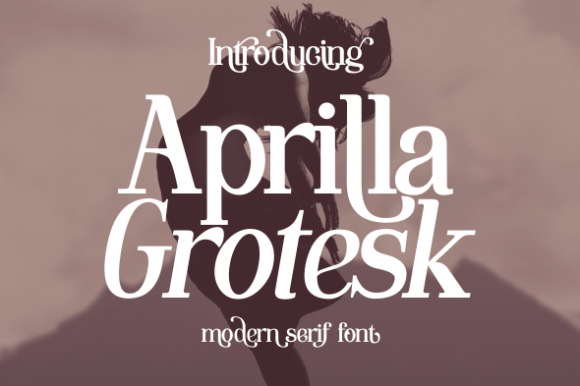
Introducing Aprilla Grotesk Font, a Striking Serif Font That Will Captivate Your Designs.
Aprilla Grotesk, a modern serif font, is a masterpiece crafted to leave an indelible mark on your creative projects. its captivating glyphs are meticulously designed to elevate your designs, making them stand out from the crowd.
With Aprilla Grotesk, you'll embark on a creative journey like never before. Transform your logos into iconic symbols, breathe life into your quotes, make your social media posts shine, and create branding projects that command attention. Unleash your inner artist and design magazine covers that captivate readers and write books that leave a lasting impression. The possibilities are infinite.
Aprilla Grotesk is not just a font; it's an artistic expression that transforms your vision into reality. Its versatility knows no bounds, making it the perfect choice for various projects. Its elegant curves and sharp edges create a captivating contrast that draws eyes to your designs.
Experience the Joy of Creating with Aprilla Grotesk:
**Craft Logos That Speak Volumes:**
Elevate your logos with Aprilla Grotesk's distinct style. Let your logo tell your brand story in a language that resonates with your audience, making a lasting impression that sets you apart from the competition.
**Quotes that Inspire and Captivate:**
Share your wisdom and creativity with the world through quotes adorned with Aprilla Grotesk. Make your words come alive, resonate with your readers, and leave an enduring impact.
**Social Media Posts That Sparkle:**
Captivating social media posts are the key to engaging your audience and growing your online presence. With Aprilla Grotesk, your posts will shine, attracting attention like a magnet.
**Branding Projects That Command Attention:**
Create branding that commands attention and leaves a mark in the minds of your customers. let Aprilla Grotesk be your creative ally, helping you craft a visual identity that speaks volumes about your brand's essence.
**Magazine Covers That Enchant:**
Design magazine covers that enchant readers, enticing them to delve into the stories within. Let Aprilla Grotesk be the key to creating covers that captivate and leave a lasting impression.
**Book Covers That Leave a Lasting Impression:**
Write books that not only enchant readers but also make them proud to display on their bookshelves. Aprilla Grotesk will adorn your book covers with an elegance that speaks to their literary value.
**Let Your Creativity Soar with Aprilla Grotesk:**
Aprilla Grotesk is more than just a font; it's a catalyst for your creativity. With its ability to elevate your designs and captivate your audience, it's the missing piece you need to bring your creative visions to life. Experience the joy of designing with Aprilla Grotesk today and unveil the master of your artistry.